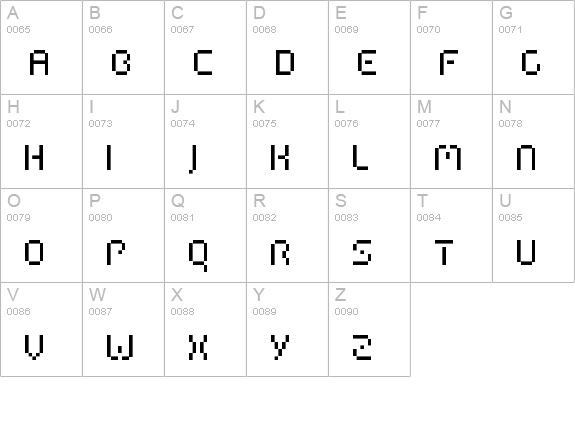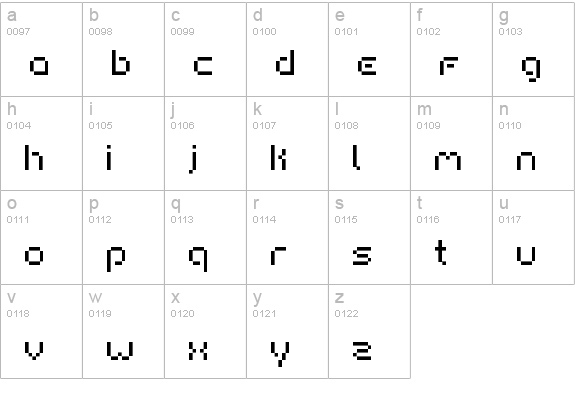
HIAIRPORT FFM Font Details
Introducing the stunning HIAIRPORT FFM font, a modern and versatile typeface that is sure to elevate your design projects to new heights. With its sleek and sophisticated appearance, this font is perfect for adding a touch of elegance to any creative endeavor. Whether you're working on branding, advertising, or web design, HIAIRPORT FFM is a fantastic choice that will make your text pop. The best part? HIAIRPORT FFM is available for free download at FontsMarket.com. That's right, you can access this premium font at no cost, making it a valuable addition to your font library without breaking the bank. Don't miss out on the opportunity to enhance your designs with this beautiful and professional typeface. Download HIAIRPORT FFM today and take your projects to the next level!